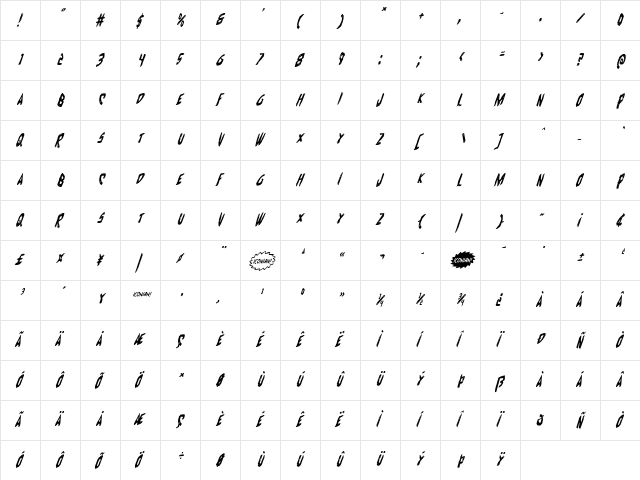
Cyrus the Virus Condensed Italic Font Preview
Design Context for Cyrus the Virus Condensed Italic Typeface
Cyrus the Virus Condensed Italic is a composed and adaptable typeface that performs quietly and consistently across a wide range of design contexts. Its italic angle brings a sense of urgency and motion to the letterforms. The condensed width makes it efficient for tight spaces without sacrificing legibility.
Pro Tip: Use Cyrus the Virus Condensed Italic for emphasis, pull quotes, and subheadings where its slanted energy can add rhythm to the layout.